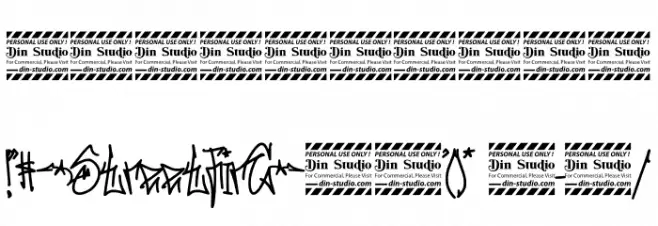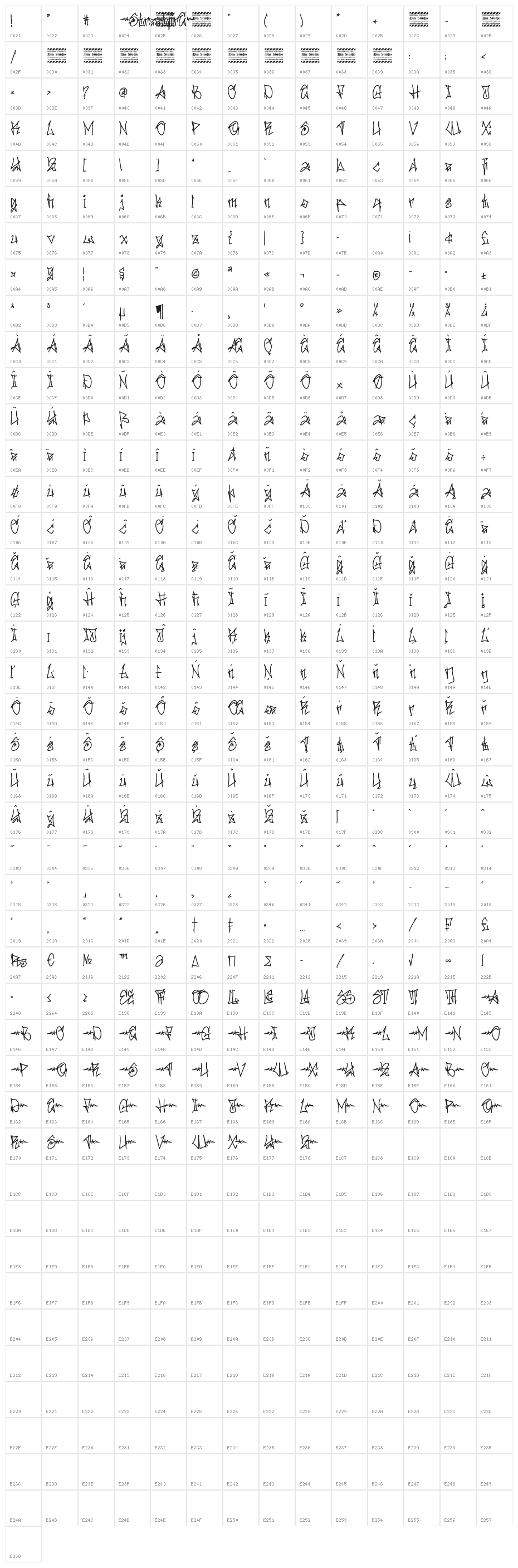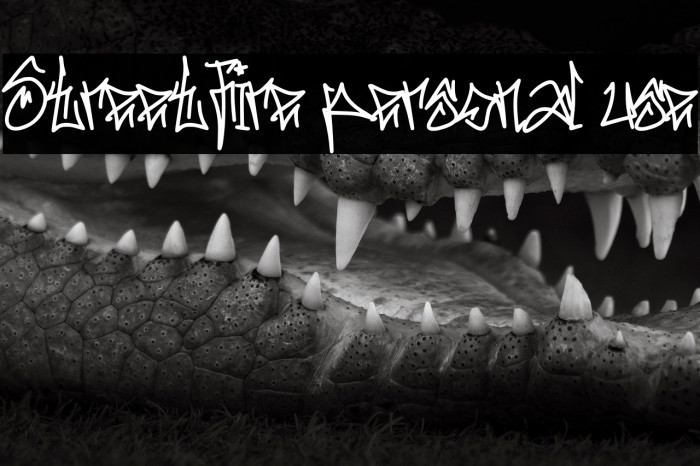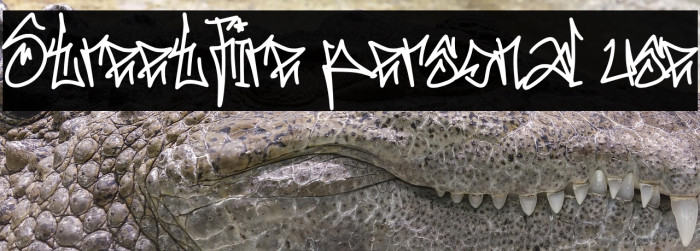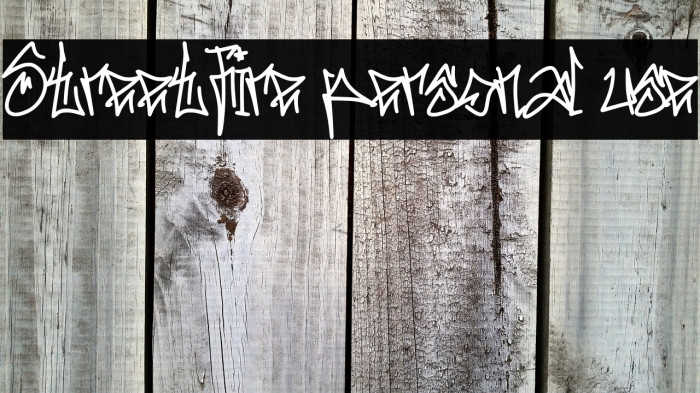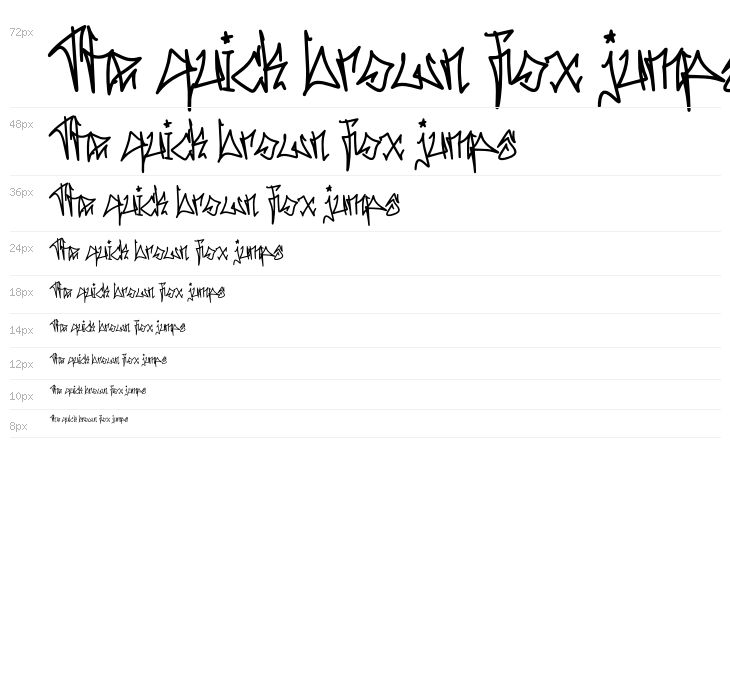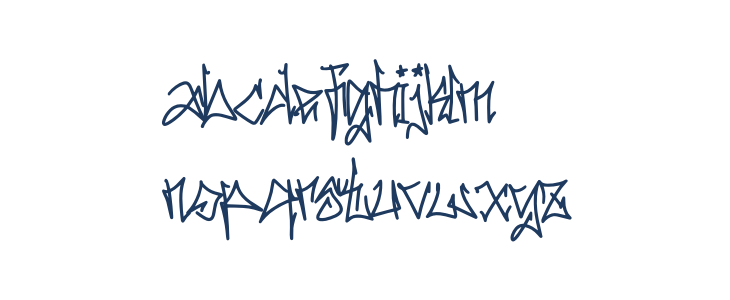
Streetfire personal use Font
Streetfire personal use Description
This font features a bold, graffiti-inspired style with sharp, angular lines and a dynamic, energetic feel. The characters are highly stylized, with exaggerated curves and points that give them a unique, edgy appearance. The uppercase letters are particularly striking, with a sense of movement and flow that mimics street art. The lowercase letters maintain this aesthetic, though they are slightly more compact. Numbers and special characters are consistent with the overall design, adding to the font's cohesive look. This font is ideal for projects that require a bold, urban vibe.
Overall StyleUrban, Edgy, Graffiti
Proposed ProjectsIdeal for street art designs, urban-themed posters, music album covers, and edgy branding projects.